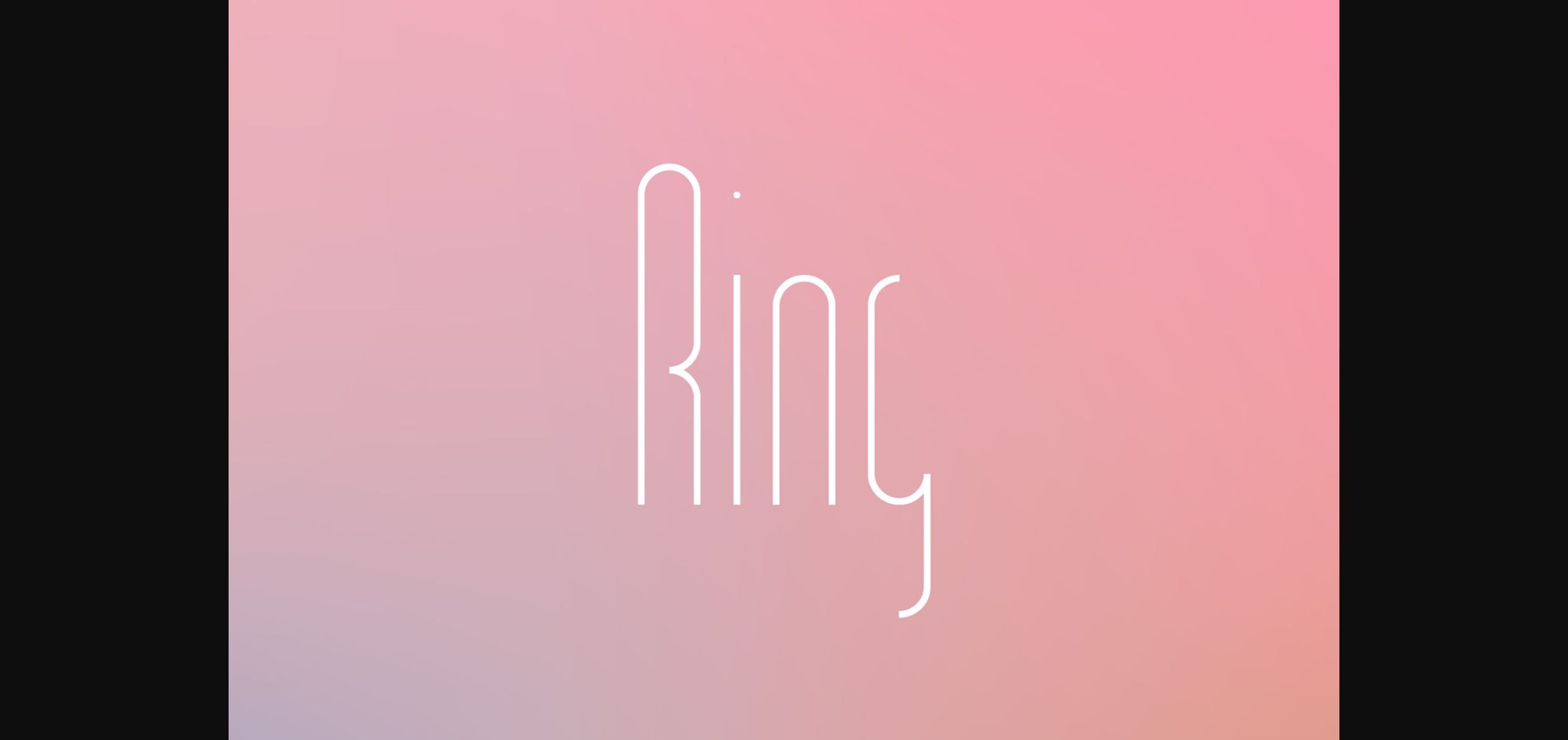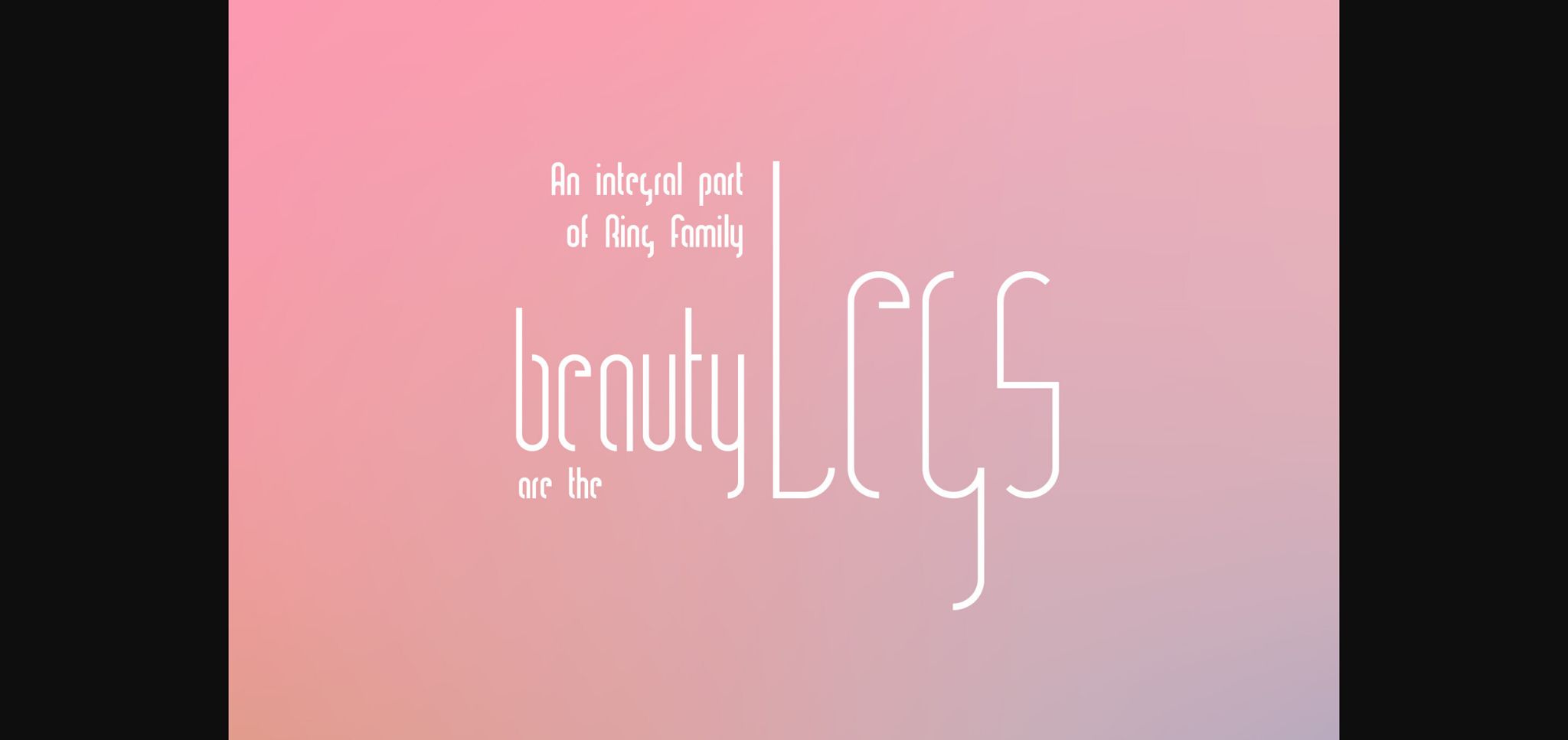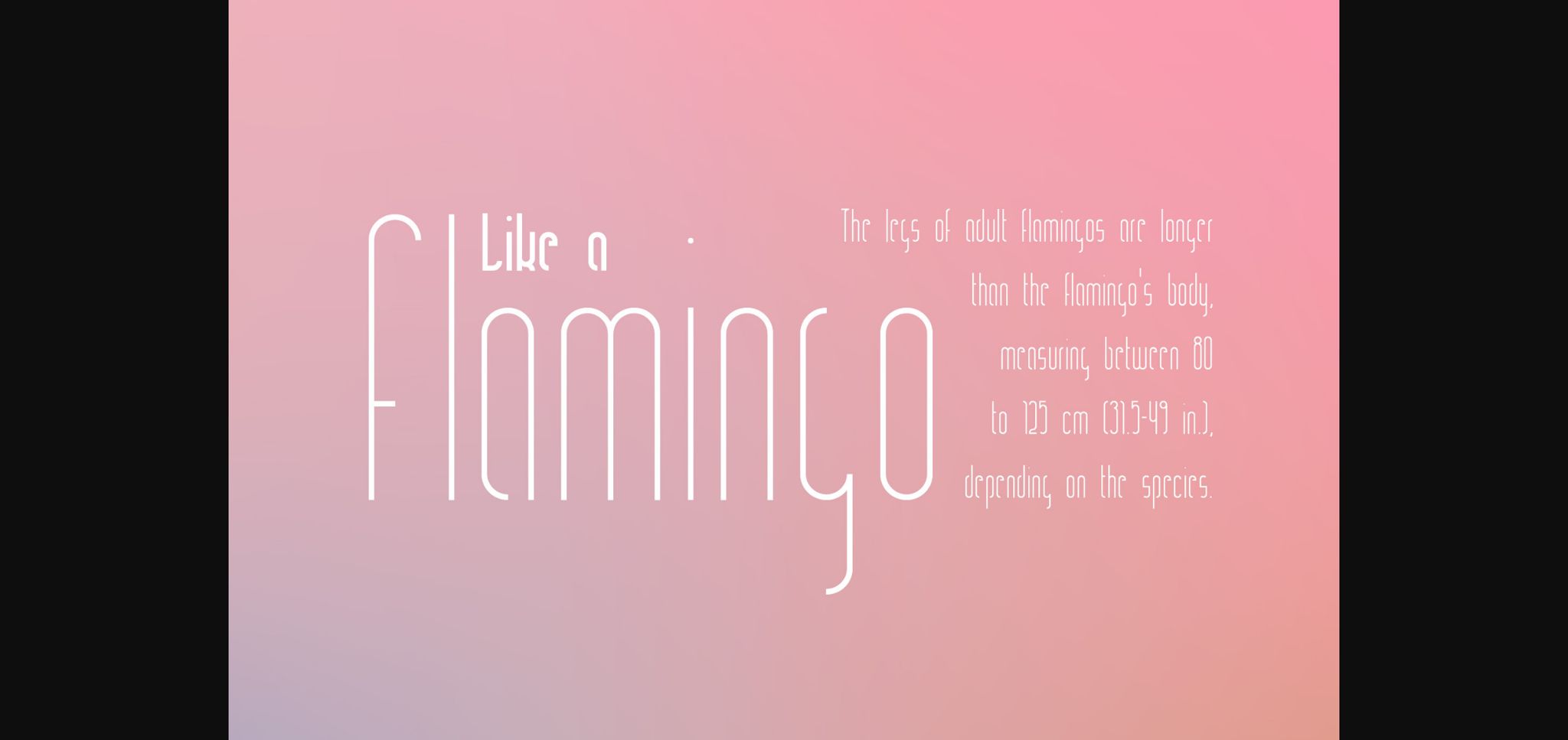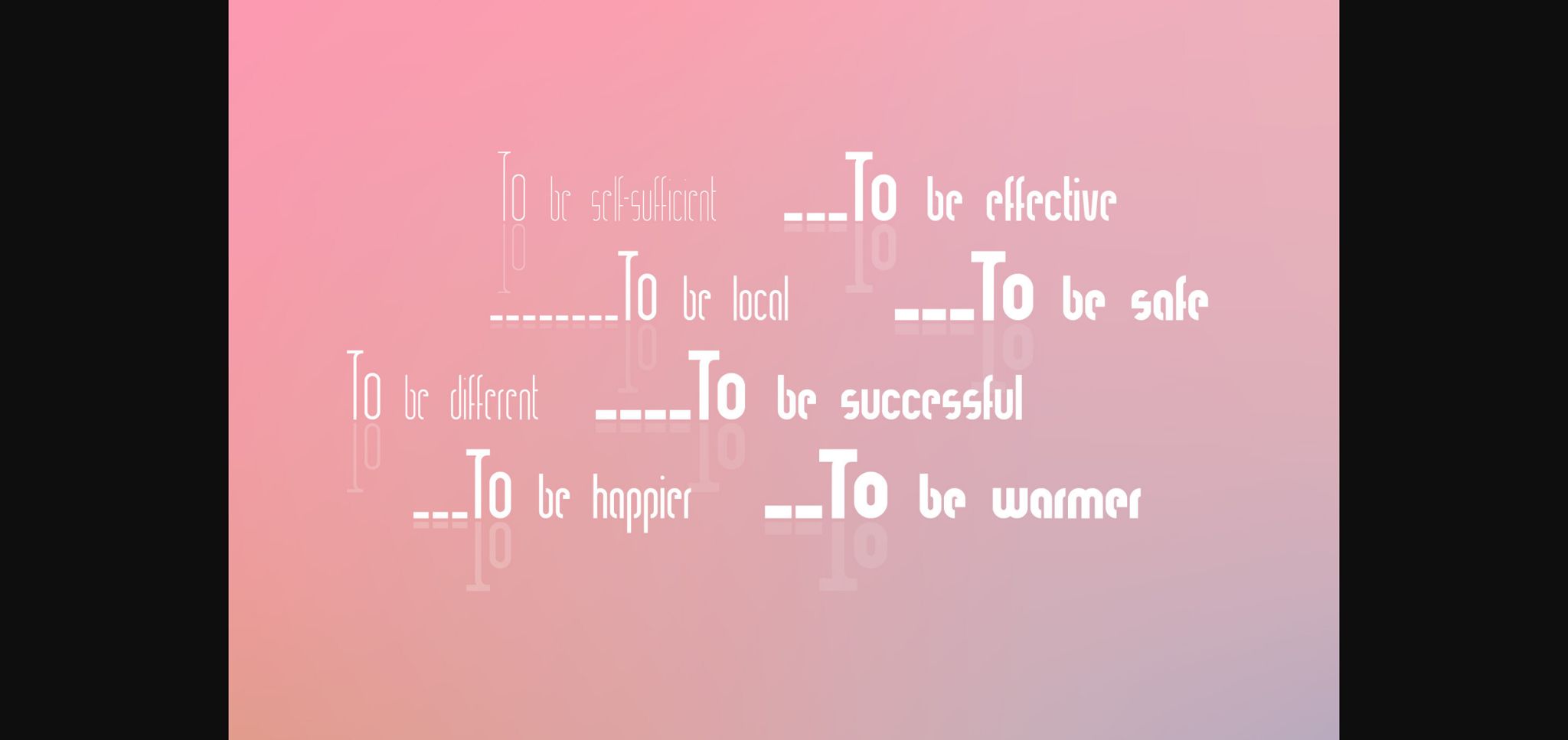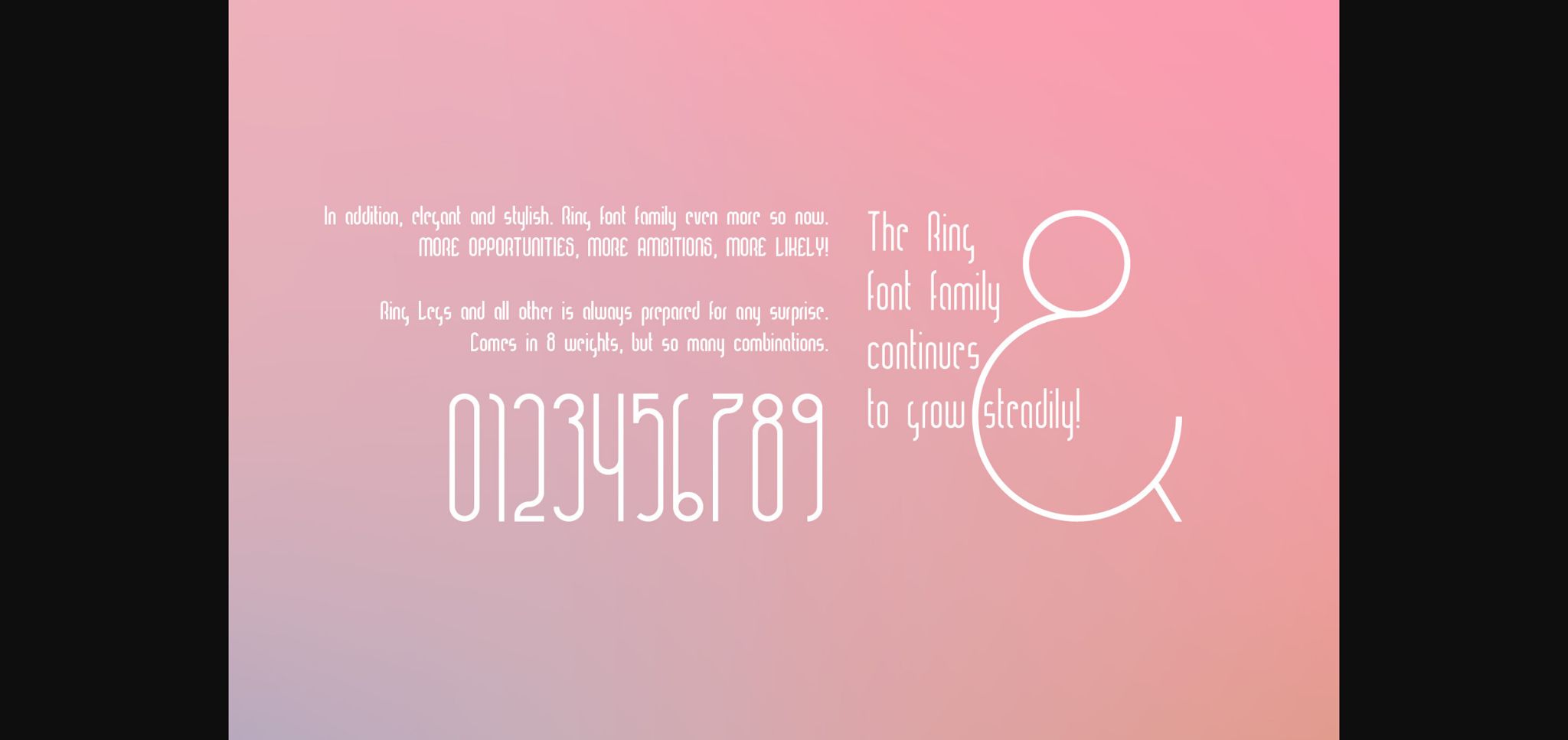
Ring Legs Font
About Ring Legs Font
An integral part of Ring Family beauty are the Legs… Ring Legs! In addition, elegant and stylish. Ring font family even more so now. More opportunities, more ambitions, more likely! Ring Legs and all other is always prepared for any surprise. Comes in 8 weights, but so many combinations. The Ring Font Family continues to grow steadily!